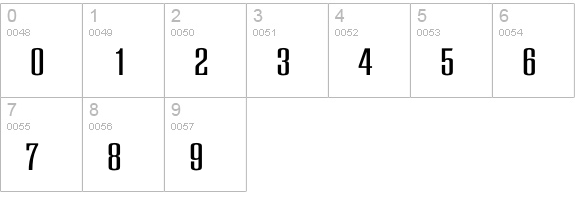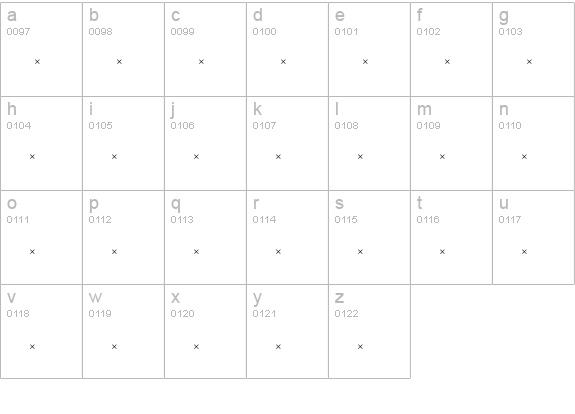
EuropaGrotesqueMediumTab Font Details
EuropaGrotesqueMediumTab is a versatile and modern font that exudes a sense of professionalism and sophistication. Its medium weight strikes the perfect balance between boldness and elegance, making it ideal for a wide range of design projects. Whether you're creating a sleek website, eye-catching marketing materials, or stylish branding, this font will elevate your work to the next level. What sets EuropaGrotesqueMediumTab apart is not just its striking design, but also its accessibility. Designed with readability and usability in mind, this font ensures that your message is conveyed clearly and effectively. And the best part? It's completely free to download at FontsMarket.com, making it a valuable addition to any designer's toolkit. With its clean lines, modern aesthetic, and effortless versatility, EuropaGrotesqueMediumTab is sure to become a go-to choice for designers looking to make a bold statement. Download it today and unleash your creativity with this exceptional font.